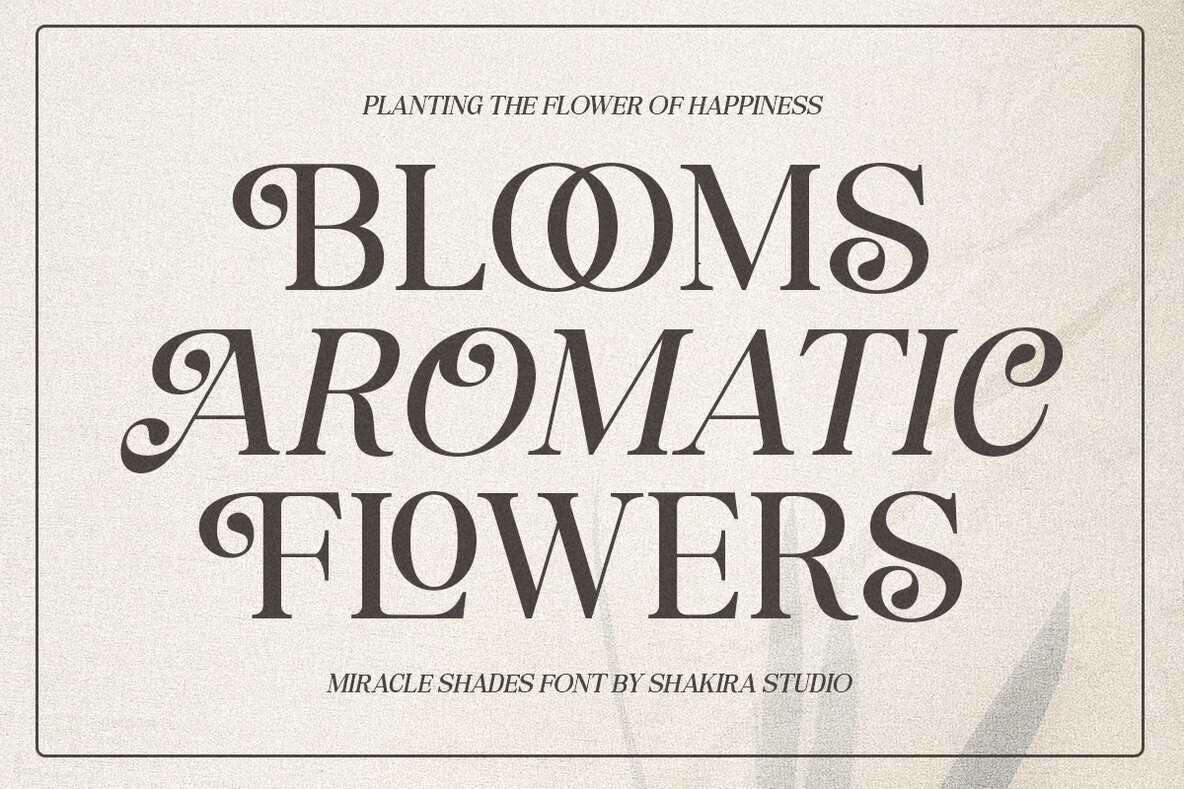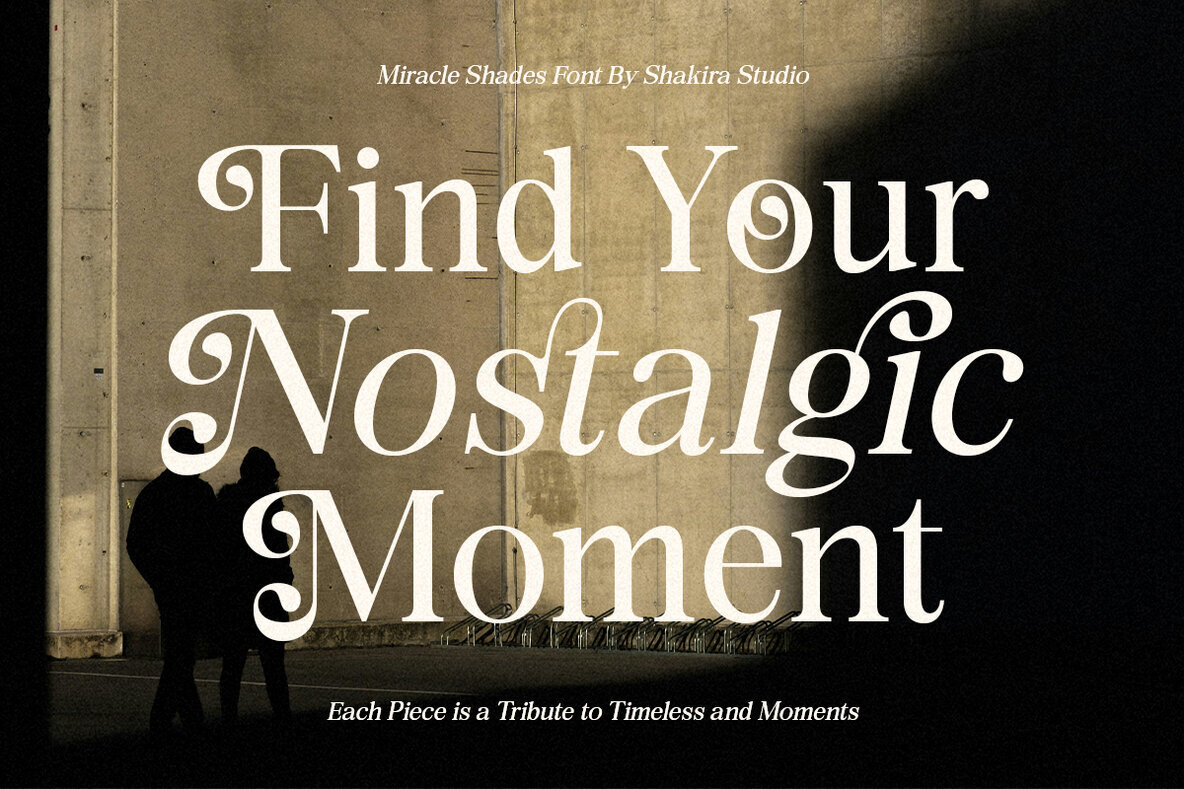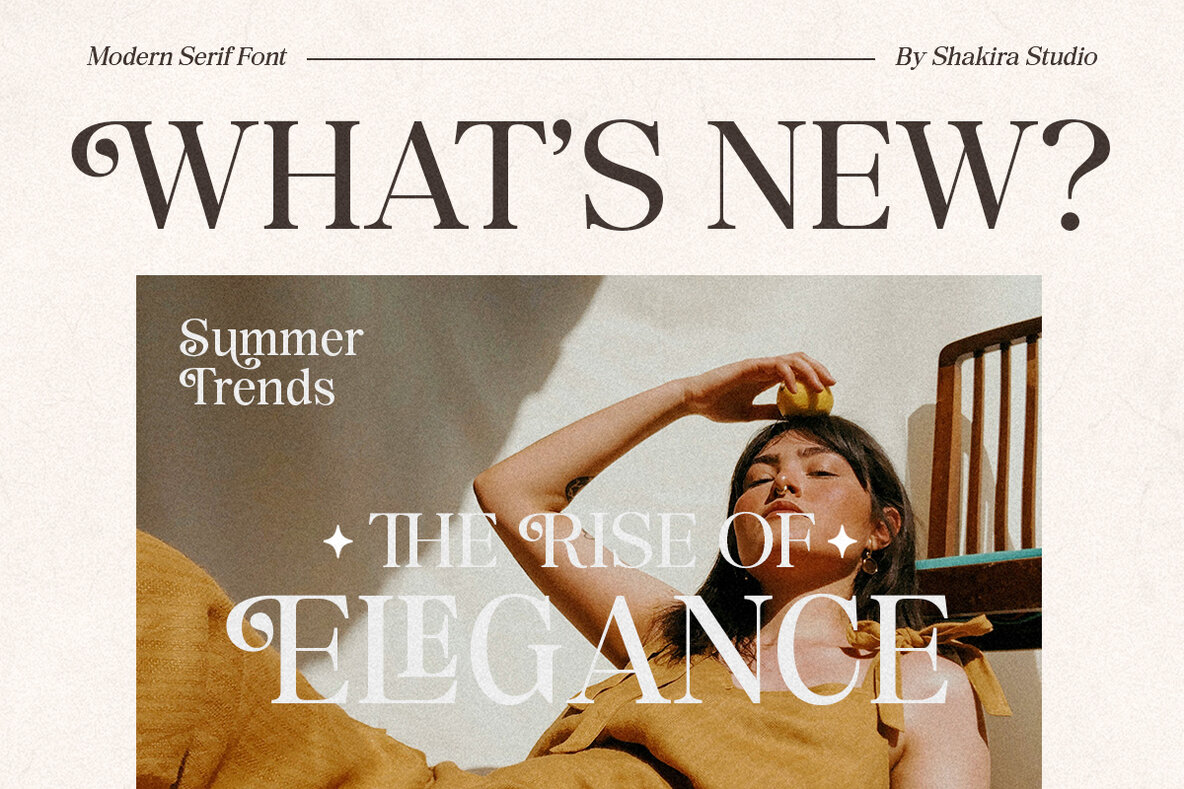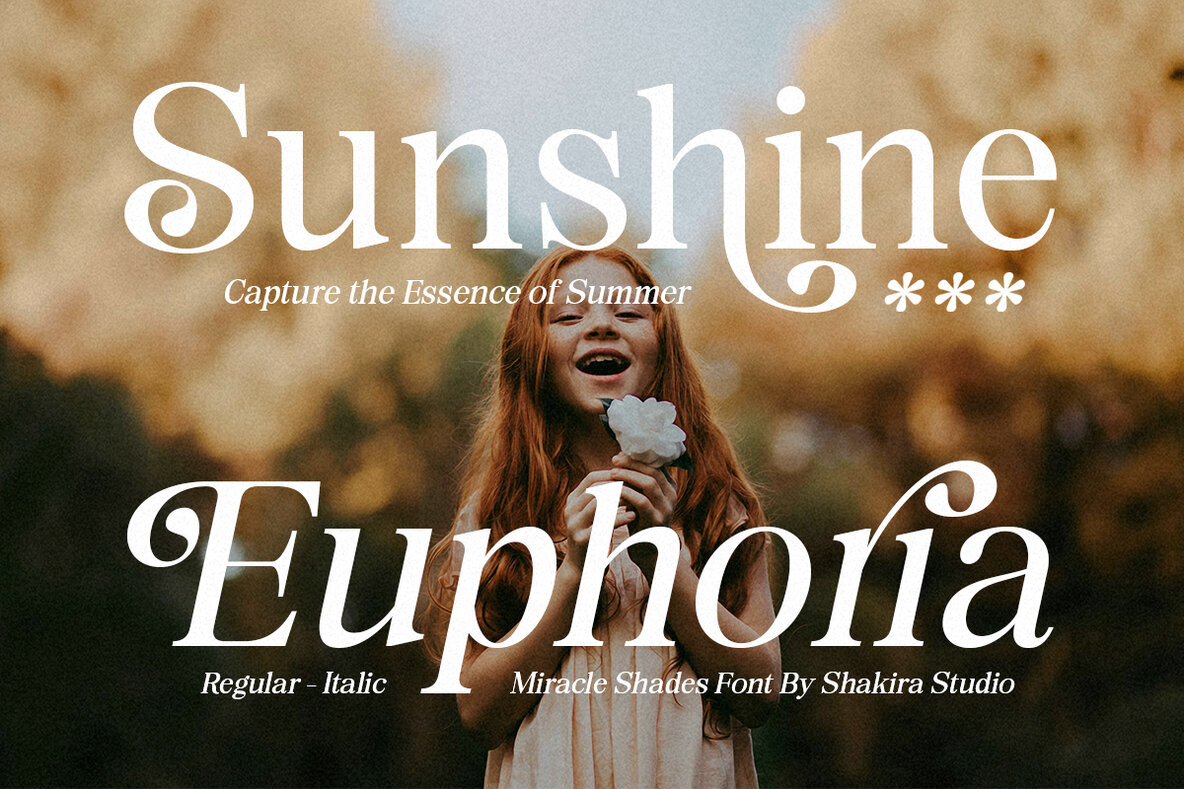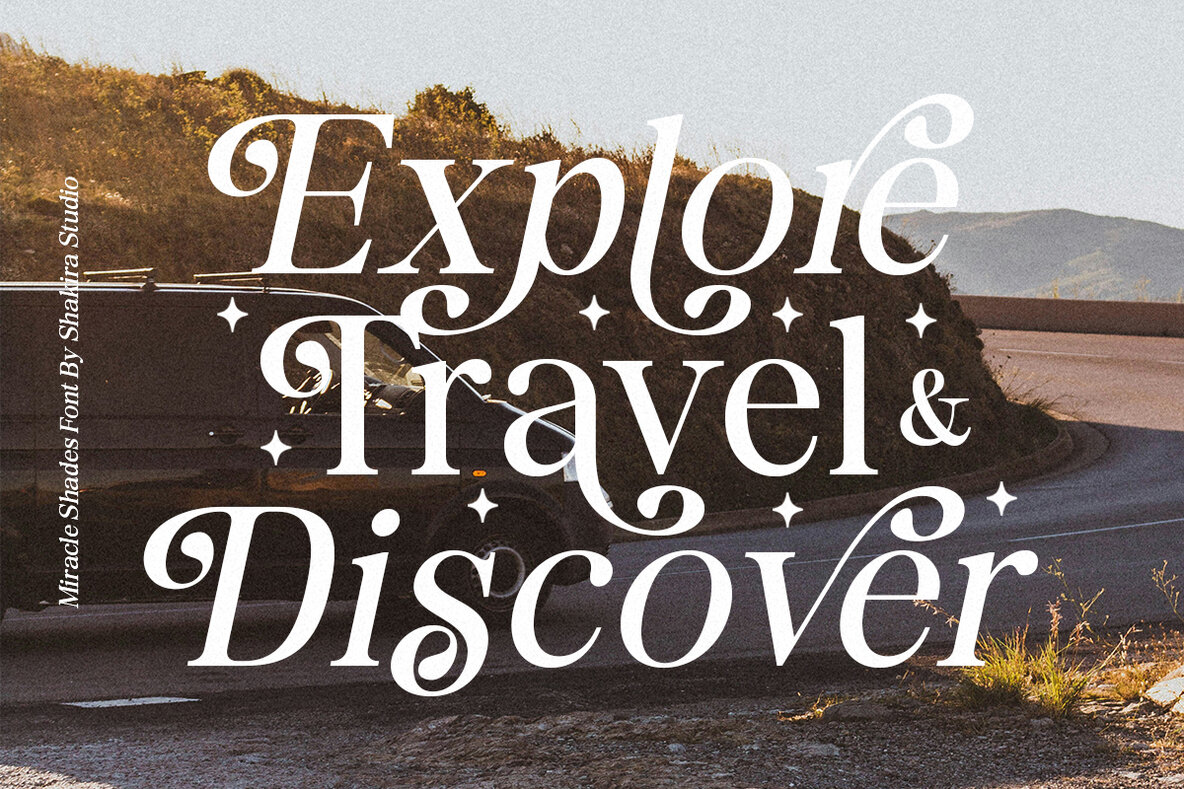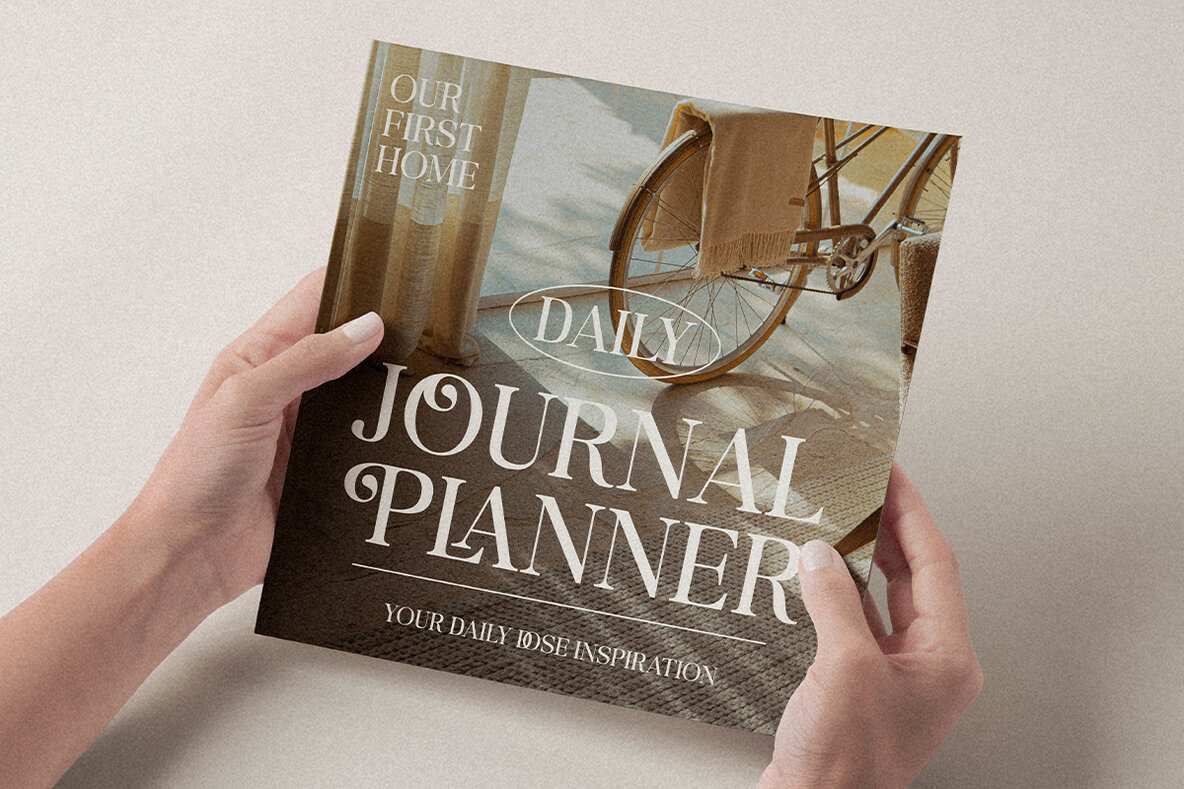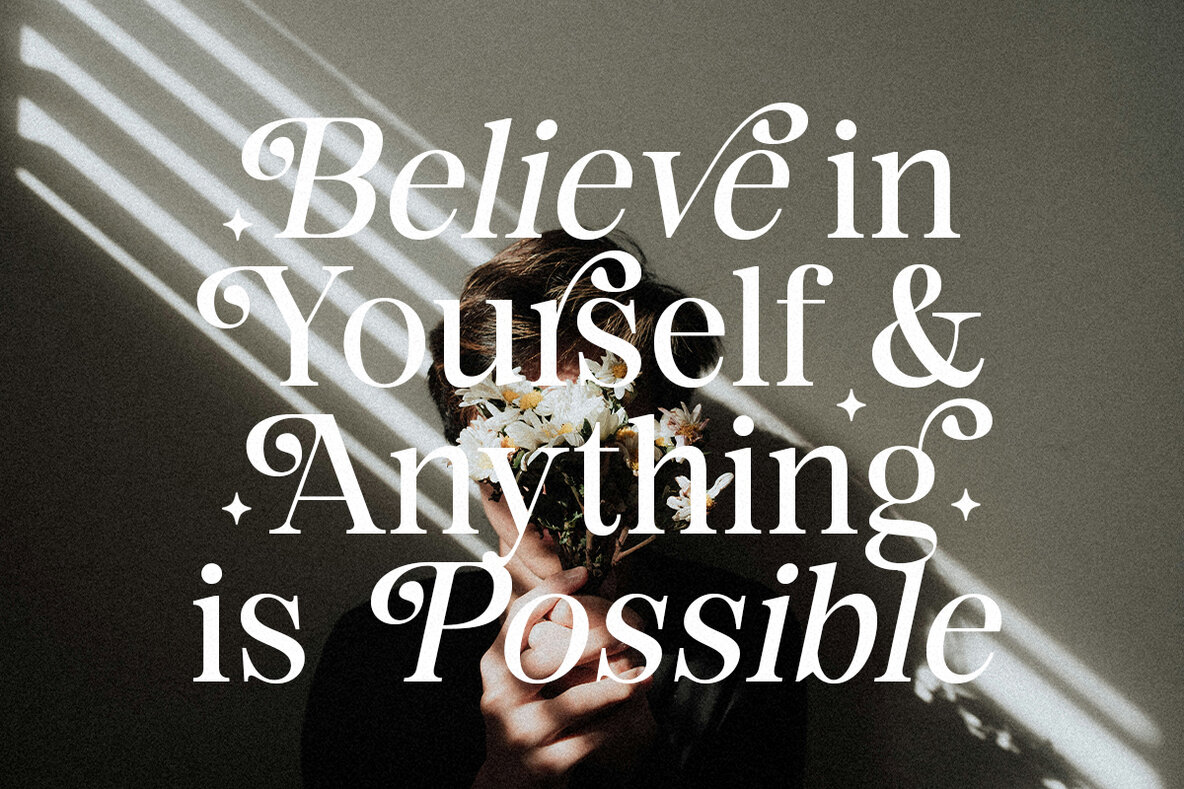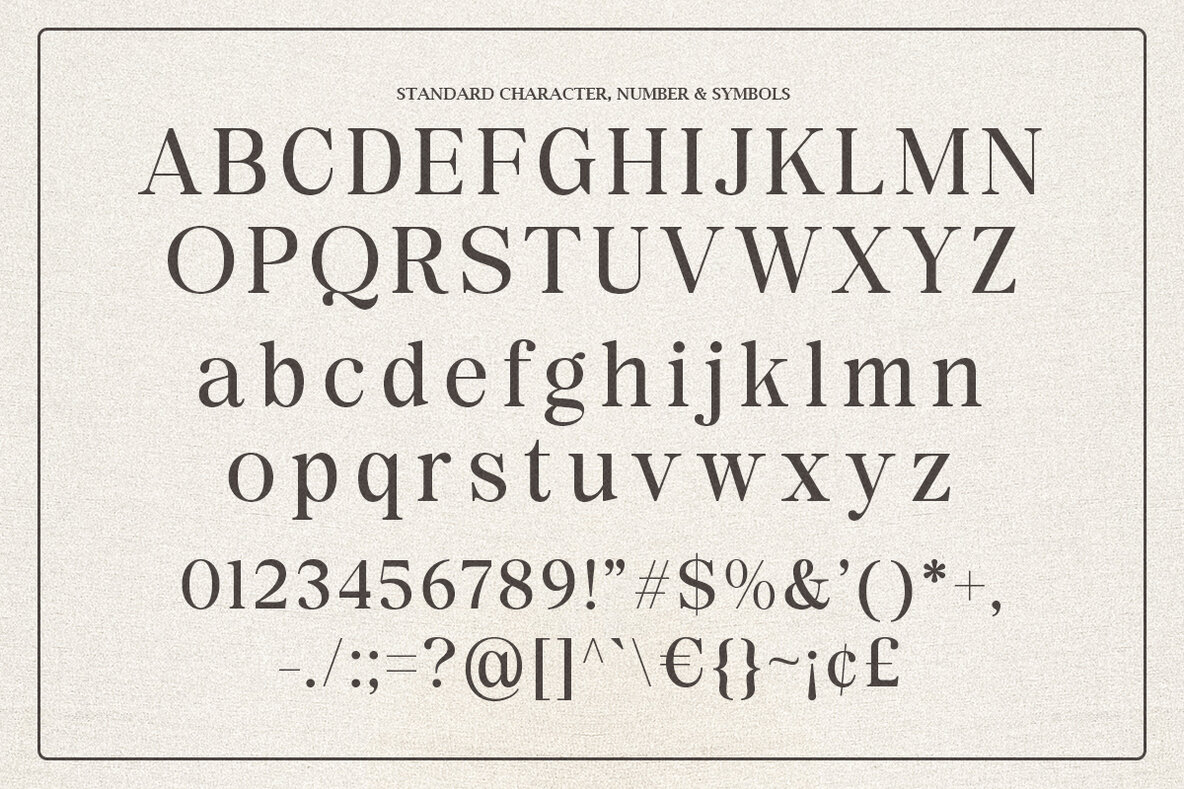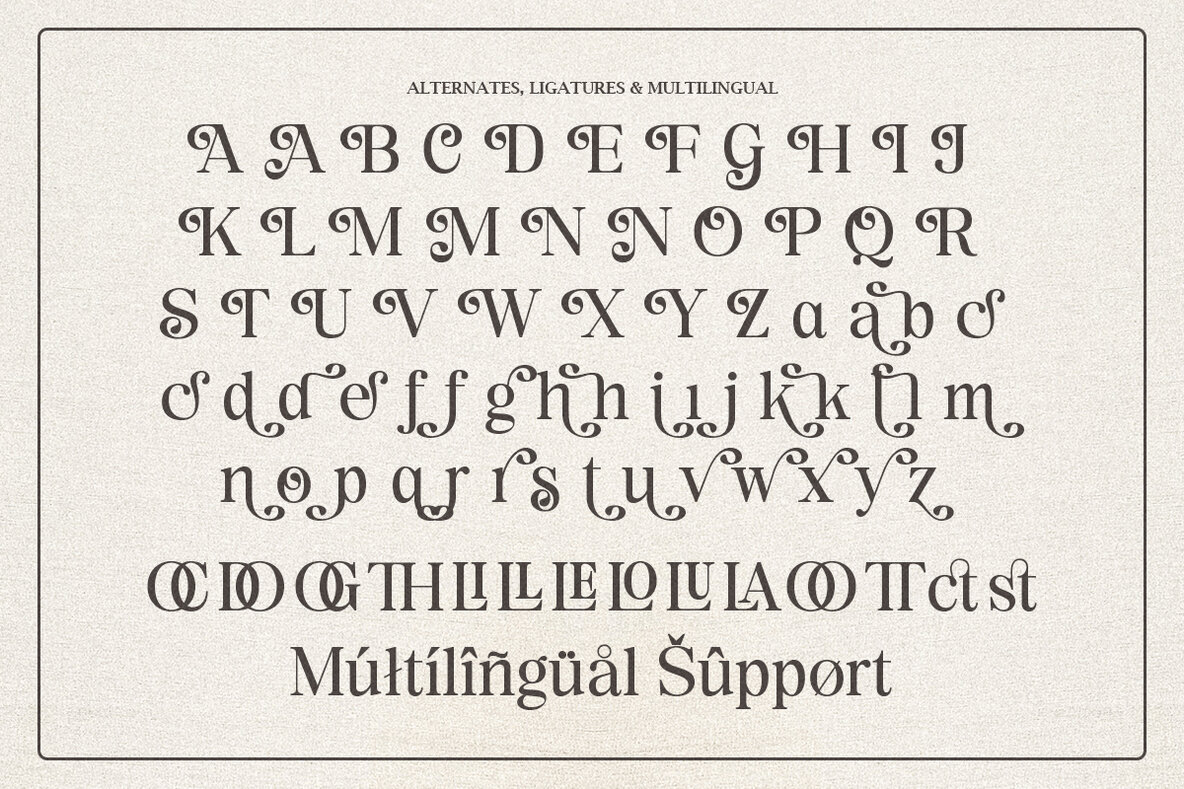
Miracle Shades Font
Miracle Shades Regular
Miracle Shades Italic
Miracle Shades is a modern serif display font characterized by its sleek, contemporary style and striking design elements. With both regular and italic versions, it offers a refined blend of modernity and sophistication, suitable for designers aiming to create high-impact headlines or elegant branding. Its distinct serifs and clean lines ensure that it commands attention across various media including print, web, and digital platforms.
Beyond its aesthetic appeal, Miracle Shades is technically robust, featuring OpenType capabilities such as ligatures and alternates. It is easily accessible in popular design software like Adobe Illustrator, Photoshop, and InDesign, and even works with Microsoft Word. The font supports multilingual characters across numerous languages, ensuring versatile use in international projects. Designed with PUA encoded characters, Miracle Shades can be fully utilized without the need for additional design software, making it a flexible and practical choice for any design project.